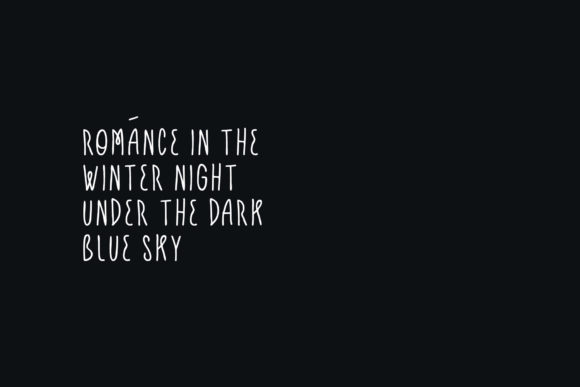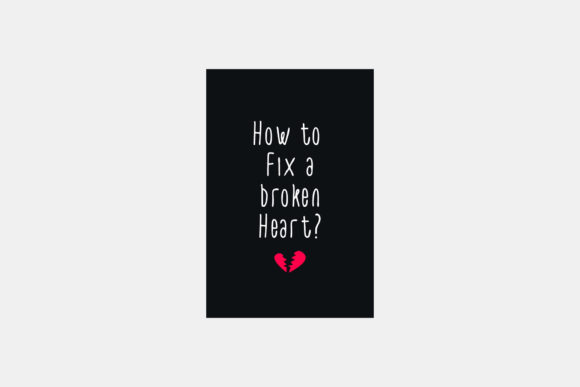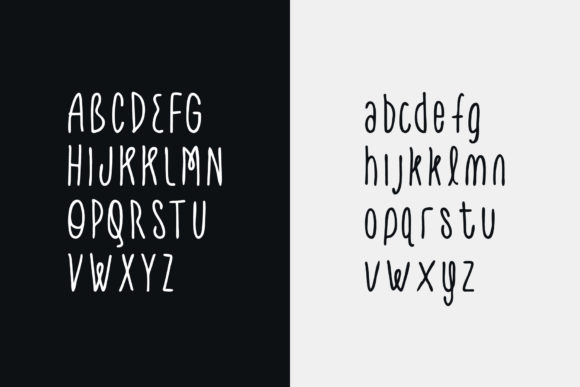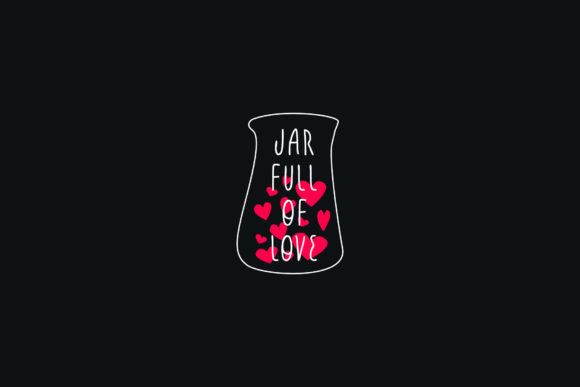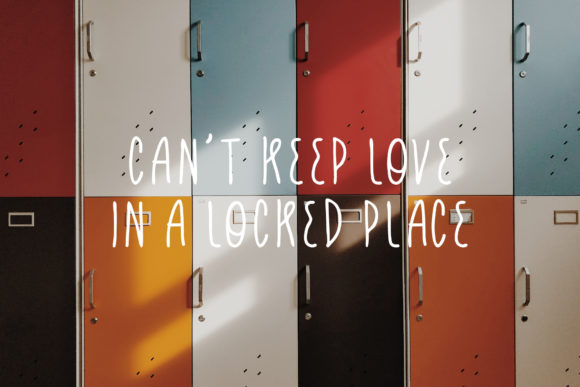
Introduction to Silver Night Font
Silver Night is a cute, simple and thin lettered handwritten font, that can be used for all chalkboard quotes or teaching material.
Its authentic look and feel will add a personal and realistic feel to your designs .
Key Features of Silver Night Font
Why Choose Silver Night Font?